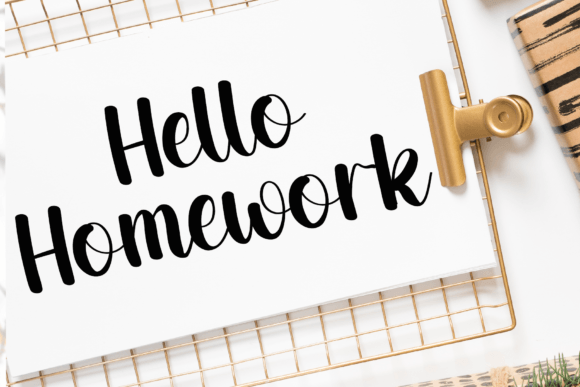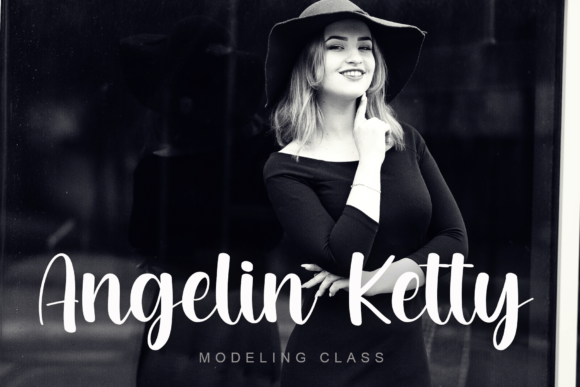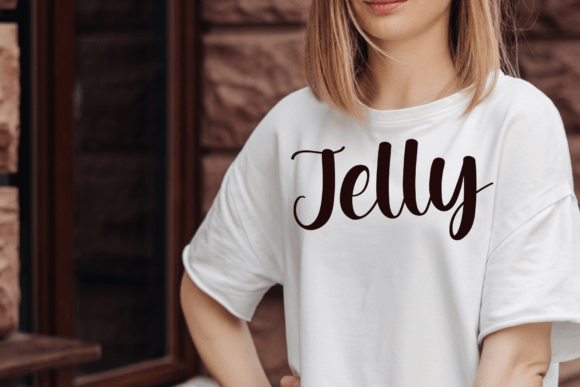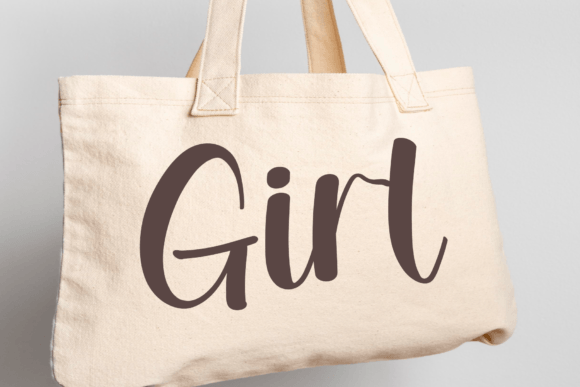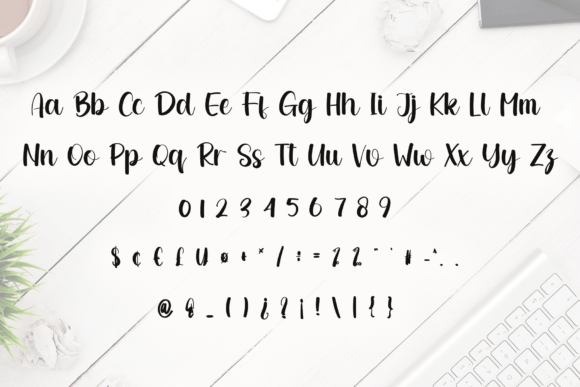
The Joy of Falling Font: A Friendly and Versatile Companion for Creatives
I’ll never forget the moment I stumbled upon Falling Font. I was working on a DIY project for a client’s wedding invitation, and I was struggling to find the perfect handwritten font that would capture the warm and cozy feel they were looking for. As I scrolled through my font library, Falling Font caught my eye, and I knew I had found the one! ✨
An Honest Review of Falling Font
- ✅ Extremely friendly and approachable feel, perfect for creating a warm and inviting atmosphere in any design project
- ✨ Cute and casual handwritten style that works beautifully for both digital and print materials
- 💫 Highly versatile and adaptable to various design contexts, from Instagram posts to calligraphy scripts
- 🎨 Excellent for creative hobbyists and designers looking for a font that can add a personal touch to their work
While Falling Font is an amazing font, there are a few things to keep in mind: 🤔
- ⚠️ Some characters may appear a bit cramped or spaced unevenly, which can be adjusted with manual kerning
- ⚠️ Limited availability of bold or heavy weights, which may not be suitable for designs requiring a stronger font presence
- Experiment with OpenType features, such as stylistic alternates and glyphs, to add more personality to your text
The Story Behind Falling Font
Falling Font was designed with the intention of creating a friendly and approachable handwritten font that would bring a personal touch to any design project. The designer, inspired by the beauty of everyday handwriting, aimed to craft a font that would be both cute and versatile. 💫
Q: What type of designs is Falling Font best suited for?
A: Falling Font is perfect for designs that require a friendly and approachable feel, such as DIY projects, social media posts, and wedding invitations.
Q: Does Falling Font support OpenType features?
A: Yes, Falling Font supports OpenType features, including stylistic alternates and glyphs, which can add more personality to your text.